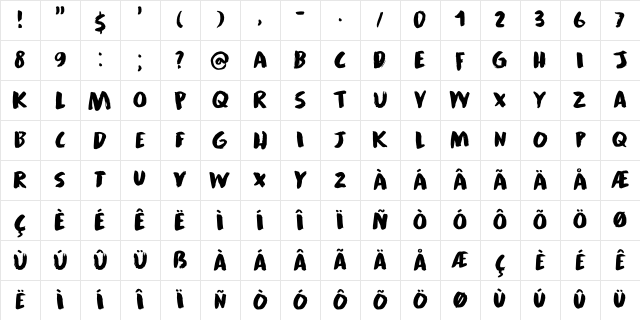
Guilty Pleasure DEMO Regular Free Font
Guilty Pleasure DEMO Regular
Foundry: David Kerkhoff
Designer: David Kerkhoff
Design Context for Guilty Pleasure DEMO
Guilty Pleasure DEMO is a composed and adaptable typeface that performs quietly and consistently across a wide range of design contexts.